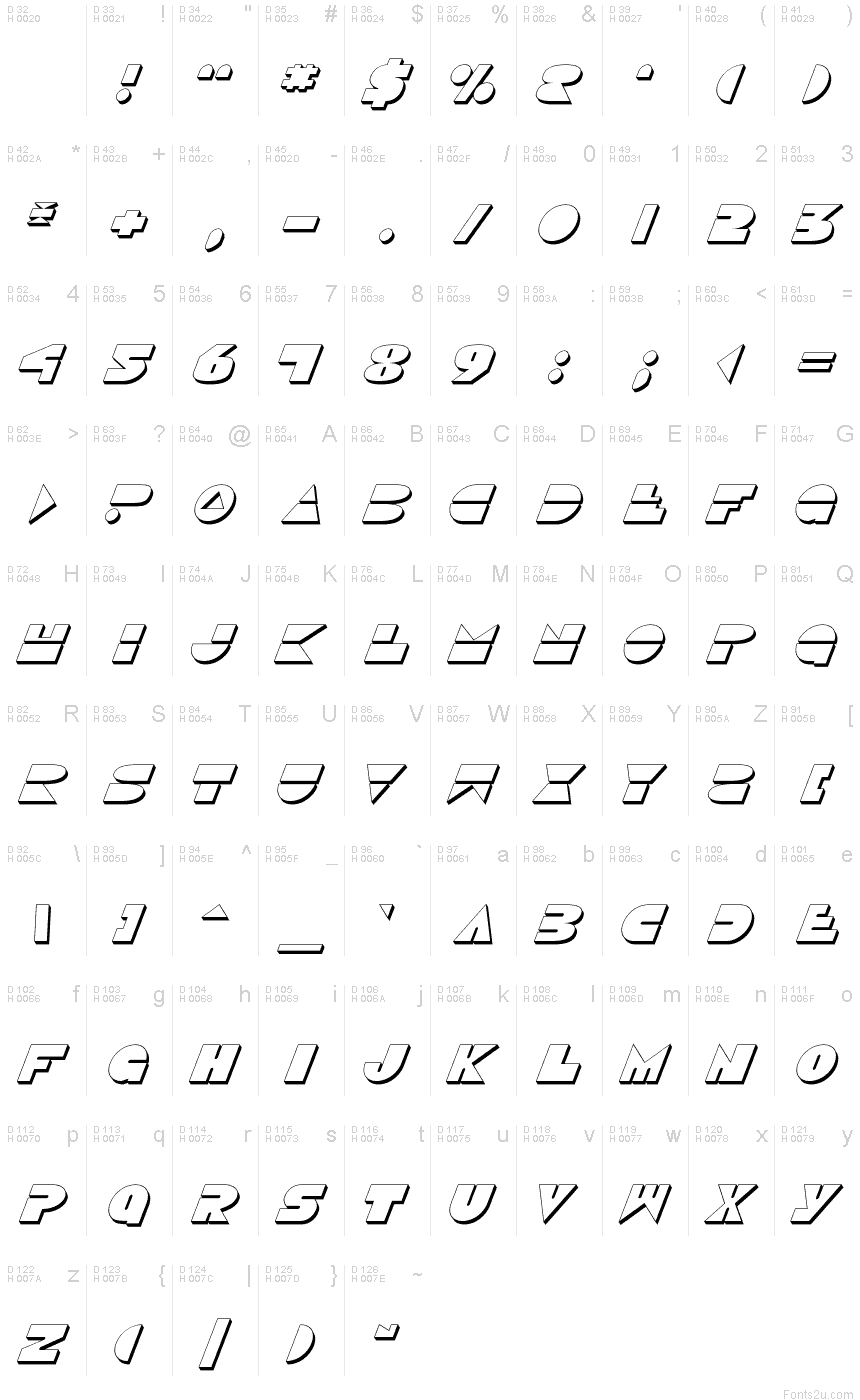
Disco Duck 3D Italic
Disco Duck 3D Italic font by Iconian Fonts is a free groovy display font with a slick slant and chunky 3D shadow that makes every word feel like it’s racing under mirrored lights. Its wide, rounded shapes have that plastic-chrome, roller-rink swagger, and the beveled depth gives short headlines a poster-ready kick without turning messy.
Using Disco Duck 3D Italic works beautifully for retro party flyers, album covers, arcade-style posters, skate or roller-rink branding, YouTube thumbnails, merch, and bold event titles. This free font looks best big; pair it with a clean condensed sans so the headline gets all the groove.